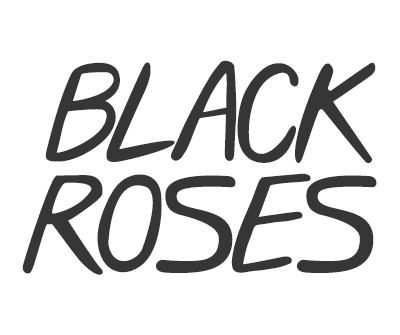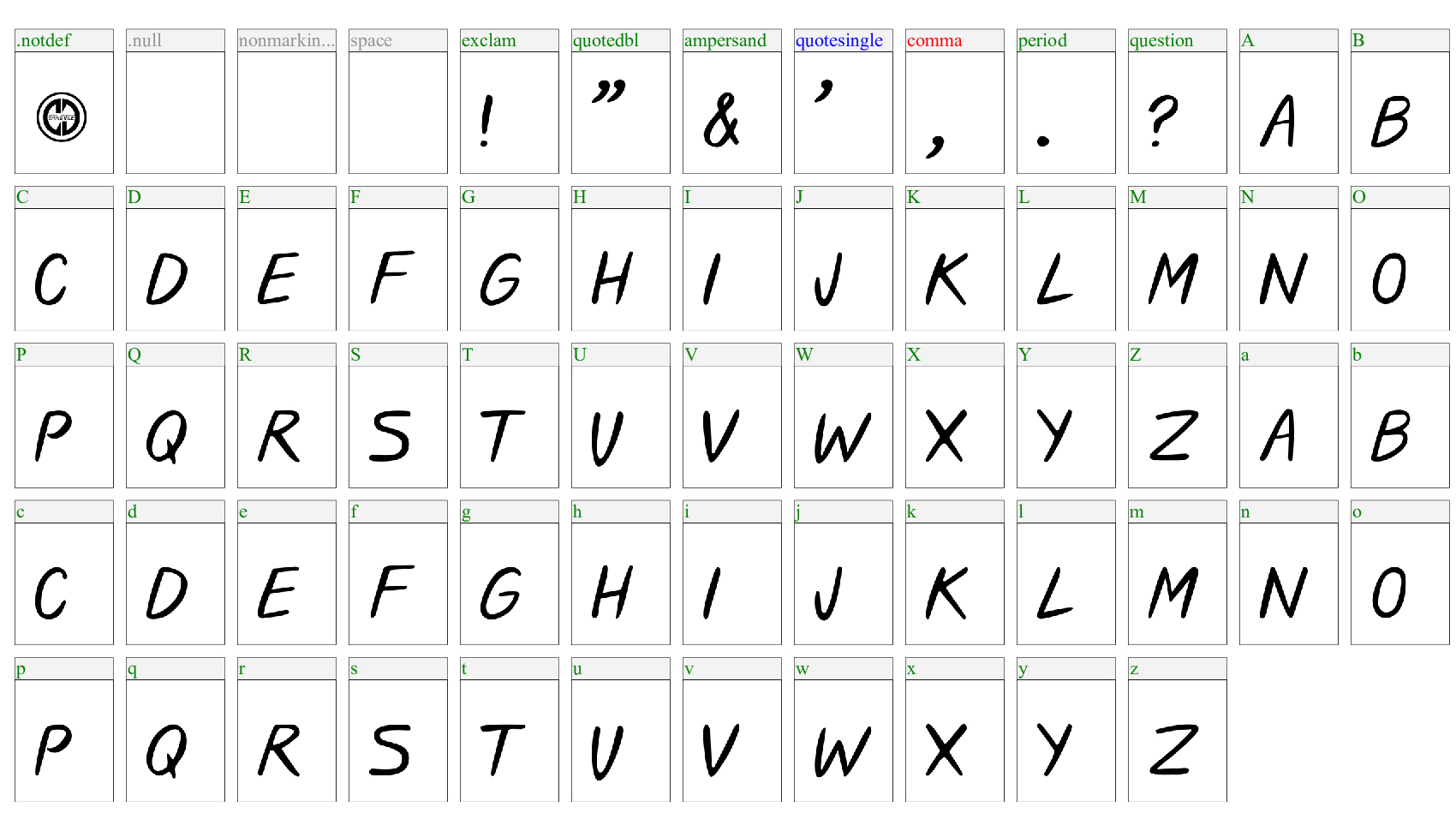
Black Roses is a bold and stylish handwriting font that is perfect for creating attention-grabbing headlines, quotes, and other graphic design projects. This font is inspired by the art of calligraphy and features smooth and fluid strokes that create an elegant and sophisticated look. The bold weight of the font gives it a strong and confident feel, making it perfect for use in projects that require a bold and striking visual impact. Whether you're creating posters, flyers, or digital designs, Black Roses is sure to add a touch of sophistication and style to your work. The font's versatile design makes it suitable for a wide range of design projects, from wedding invitations to fashion and beauty branding. Black Roses is a must-have for designers looking for a bold and stylish handwriting font to add to their toolkit.
Lowercase: Same as uppercase
Numbers: No
Symbols and Punctuation: Very limited, view image below to see available characters
Theme: Script, handwritten, brush